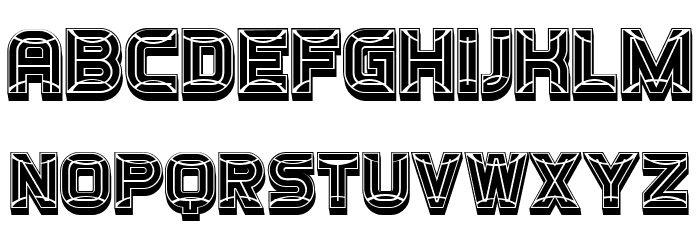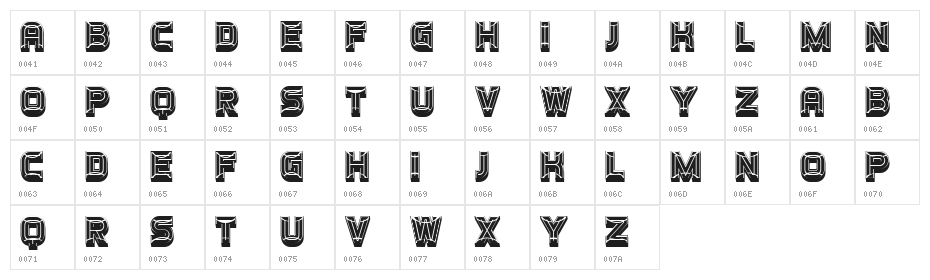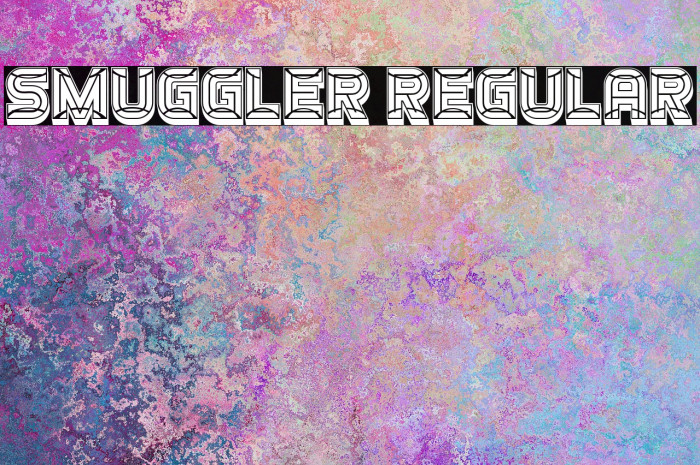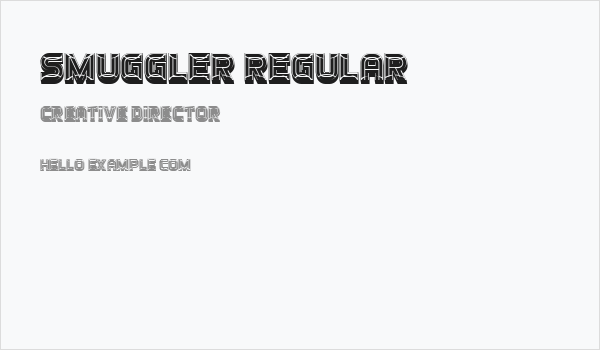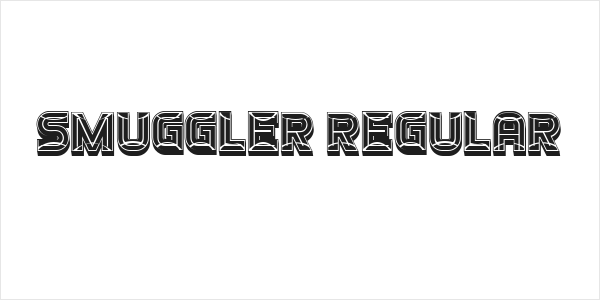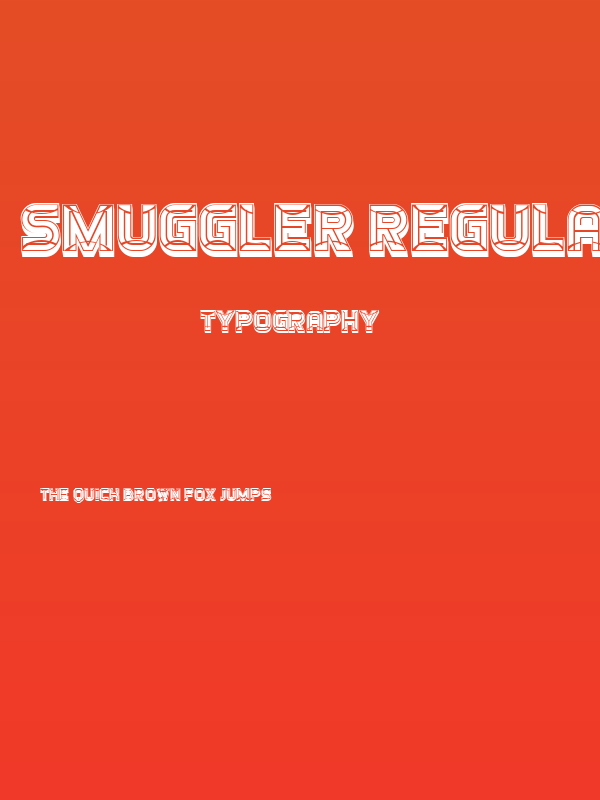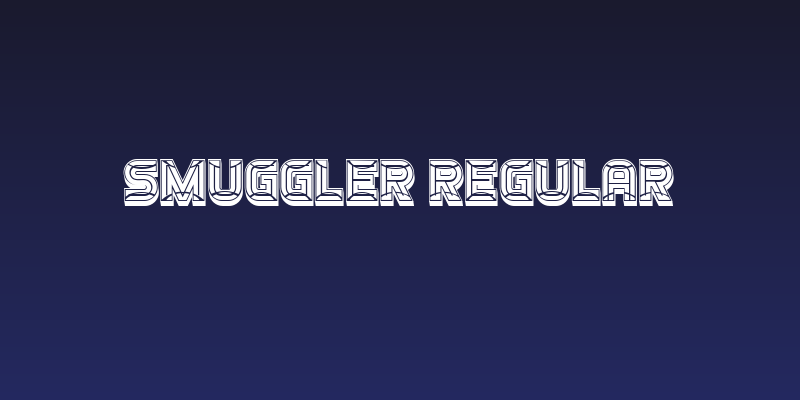
Smuggler Regular Font
Smuggler Regular Description
This font features a bold, geometric design with a distinct three-dimensional effect. The letters are constructed with thick, angular lines and a layered appearance that creates a sense of depth. The style is reminiscent of retro or vintage aesthetics, often seen in signage or poster designs. Each character is meticulously crafted to maintain consistency in its boldness and structure, making it ideal for attention-grabbing headlines or display purposes. The font's unique design elements make it stand out, providing a strong visual impact.
Overall StyleVintage
Proposed ProjectsIdeal for retro-themed posters, signage, branding projects, and any design requiring a strong visual impact.